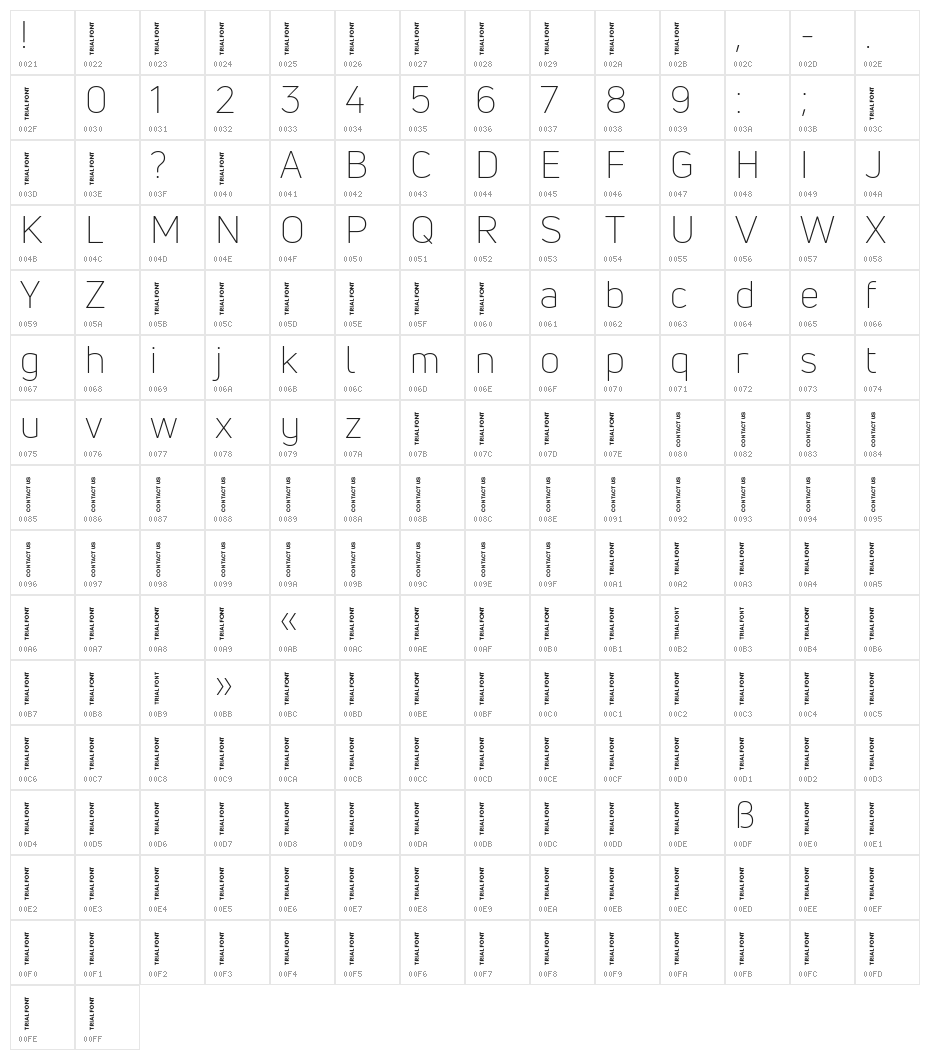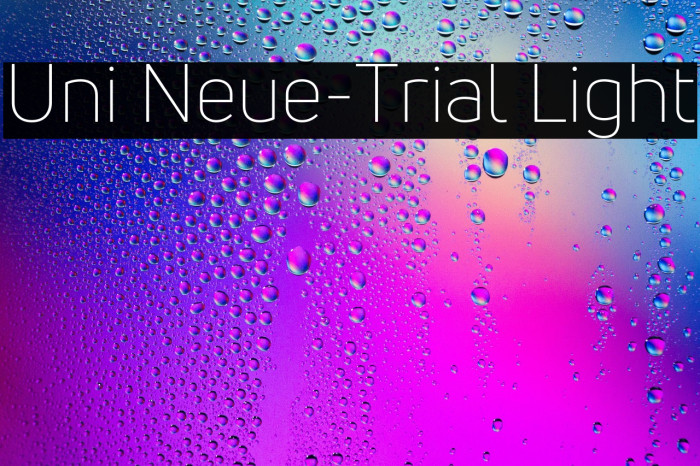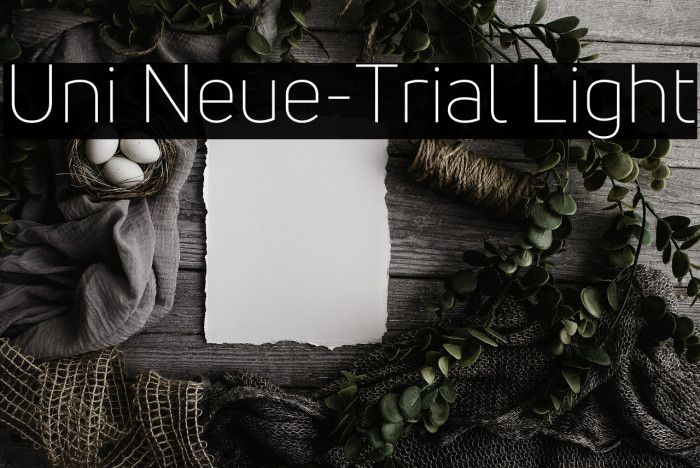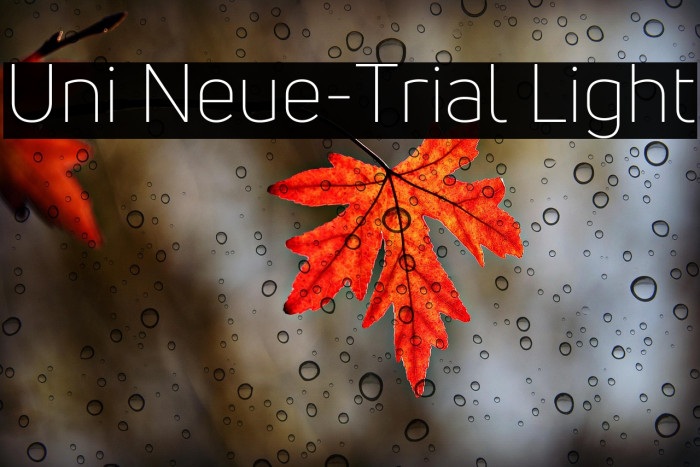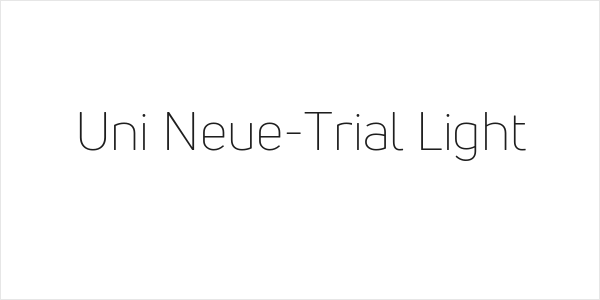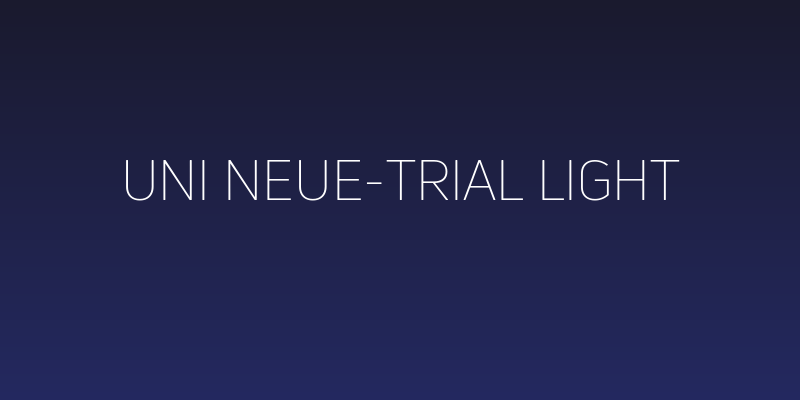
Uni Neue-Trial Light Font
Uni Neue-Trial Light Description
This font exhibits a clean, modern aesthetic with a geometric sans-serif style. The characters are well-balanced, featuring uniform stroke widths that contribute to a harmonious appearance. The uppercase and lowercase letters maintain a consistent height and width, enhancing readability. The numerals are clear and distinct, matching the overall sleek design. Special characters are crafted with precision, ensuring they integrate seamlessly with the rest of the typeface. Its simplicity and elegance make it versatile for various design applications.
| Proposed Projects | Ideal for branding, web design, corporate materials, and editorial layouts. |